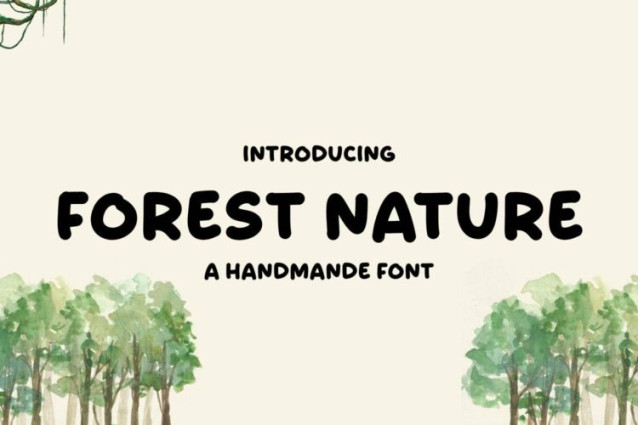
Forest Nature Font
Forest Nature Font a sweet and friendly handwritten font. Cute and fun, this font is ideal for writing wedding invitations, cards, or any other design that might need a fun touch!